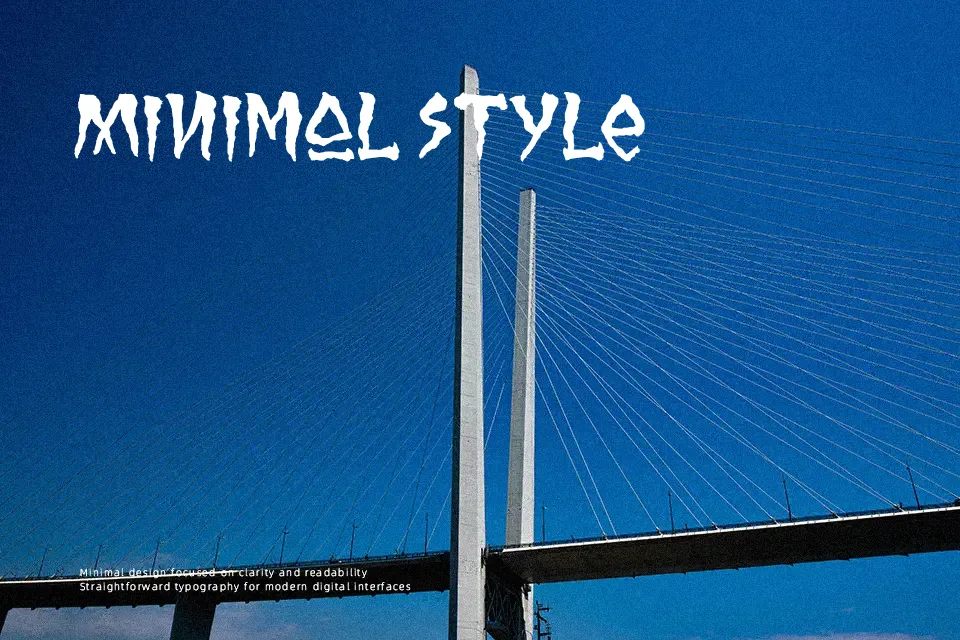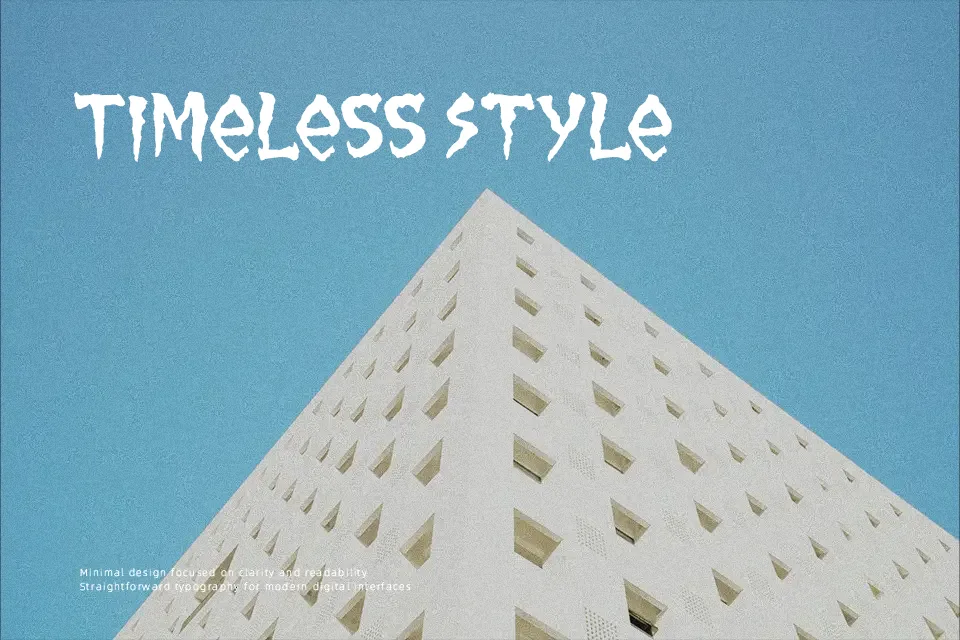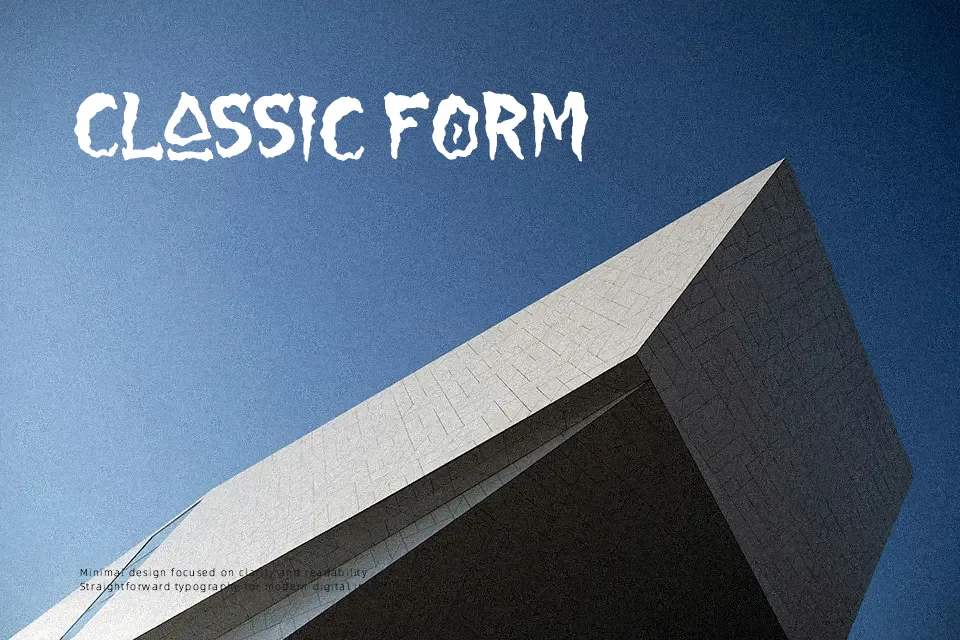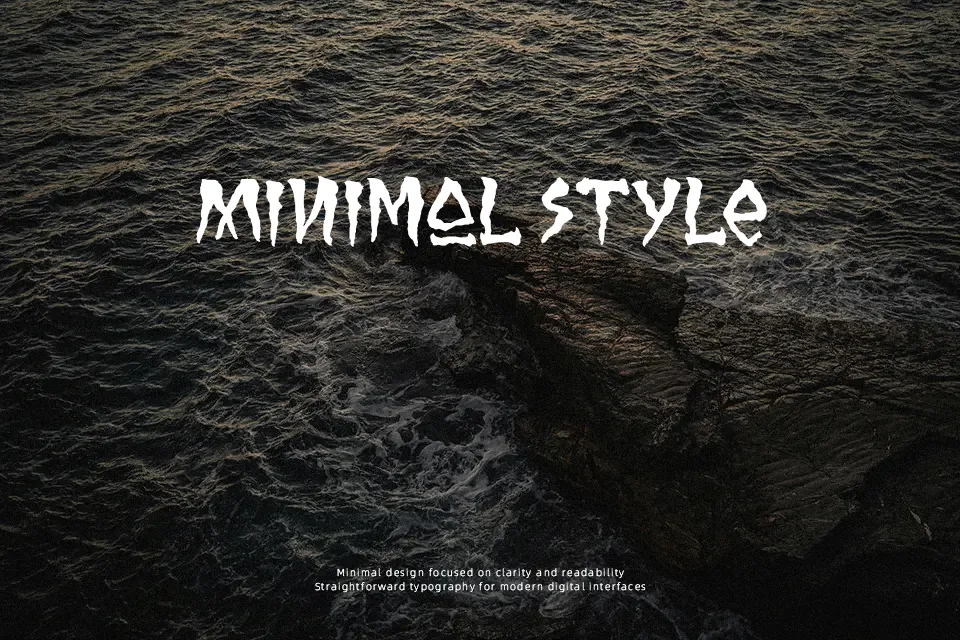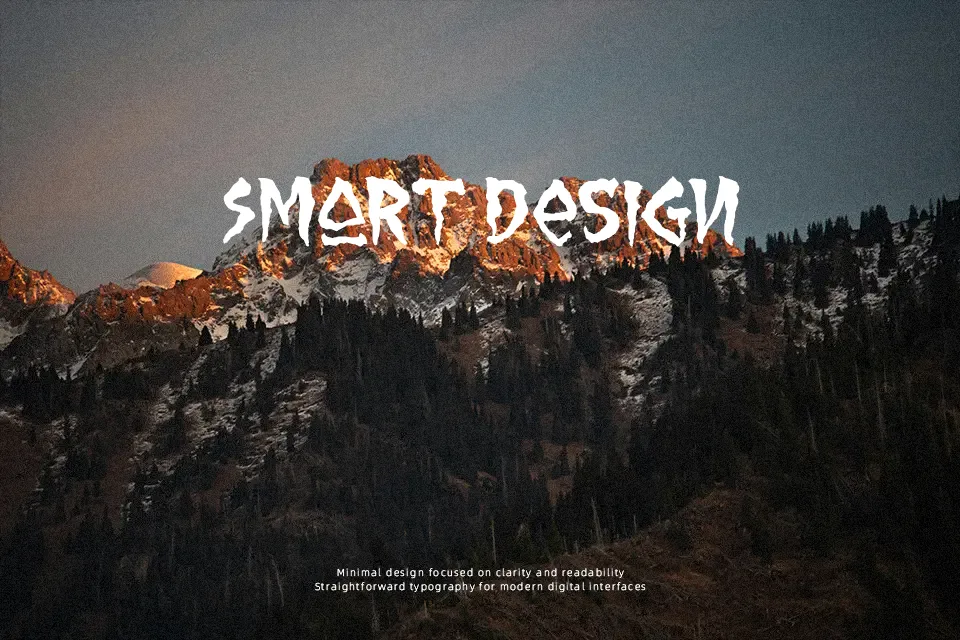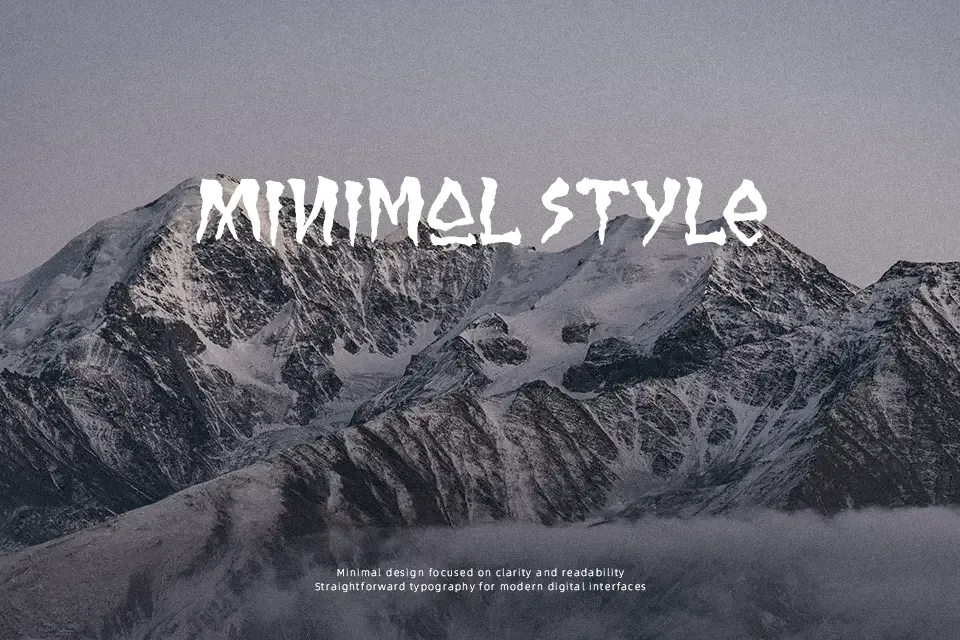
Allarmante Font
Allarmante opens with instantly recognizable horror-inflected letterforms — thick, slightly uneven strokes with organic curves that evoke hand-lettered signage from old carnival posters or gothic book covers. The contrast between its decorative structure and legible Latin character set makes it workable for logos, labels, and event titles without collapsing into illegibility. It suits Halloween product packaging, horror film titles, and spooky-themed merchandise headers well. That said, it breaks down quickly at small sizes — the stylized stroke detail muddies below 18pt. Anyone needing this font for extended body copy or professional corporate contexts will find it unsuitable; this is strictly a display-weight typeface built for short bursts of dramatic impact.
– Halloween event posters and seasonal invitations
– Horror-themed logo and brand identity work
– Spooky merchandise packaging and labels
– Music or film project title treatments
– Body text or any paragraph-length copy
– Small-size applications under 16pt
– Corporate or professional business materials
– Clean, minimal, or modernist design layouts
Perfect for branding, halloween, and logo, with a dark and decorative style.